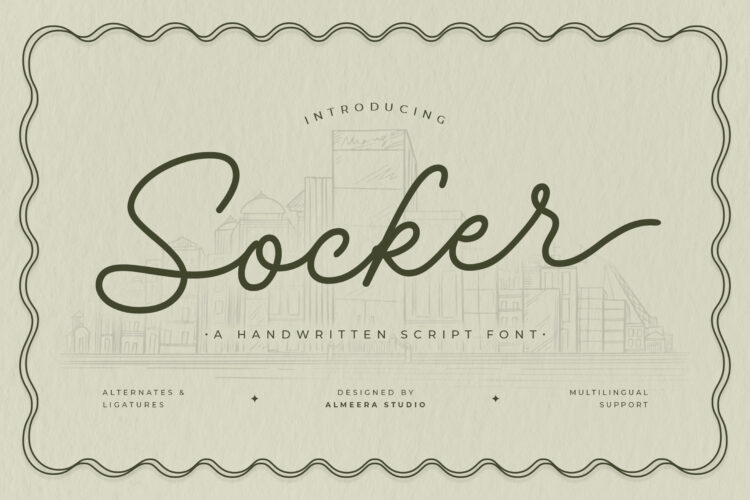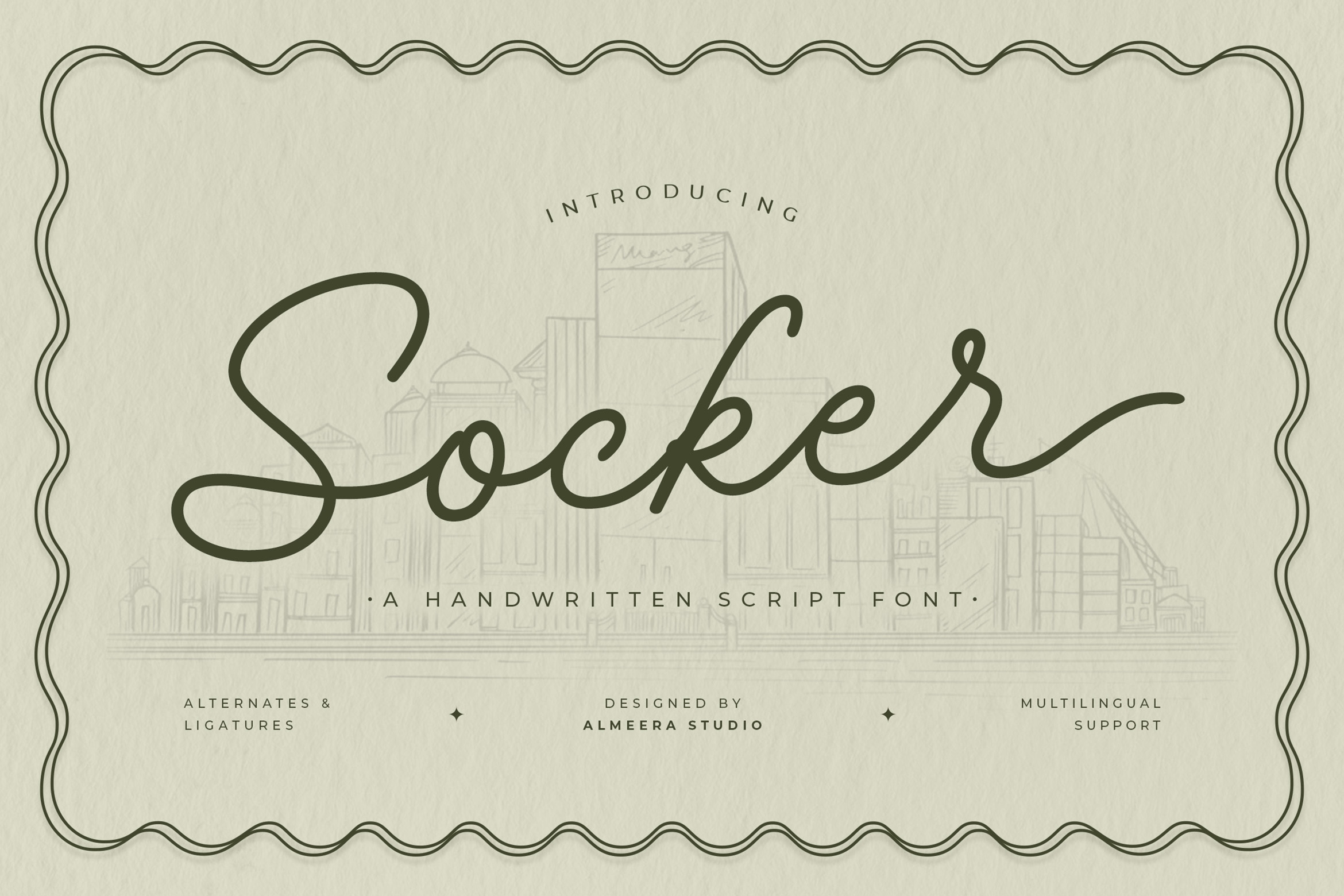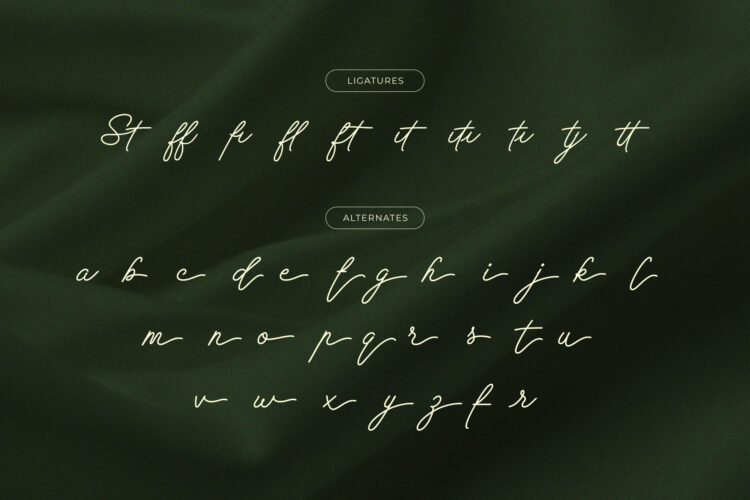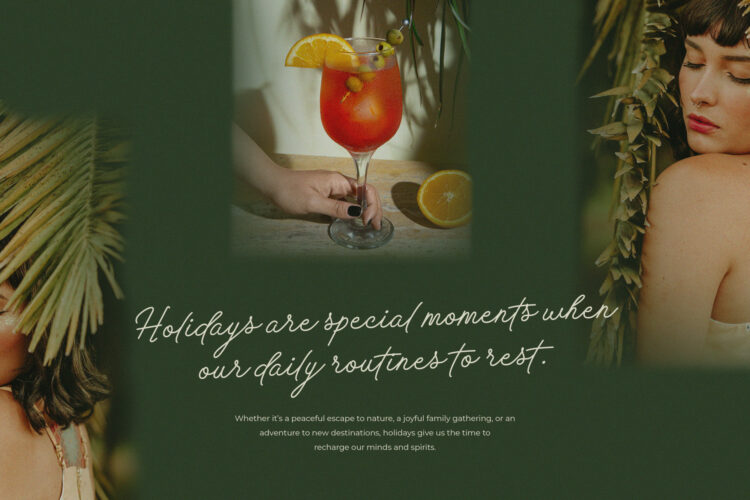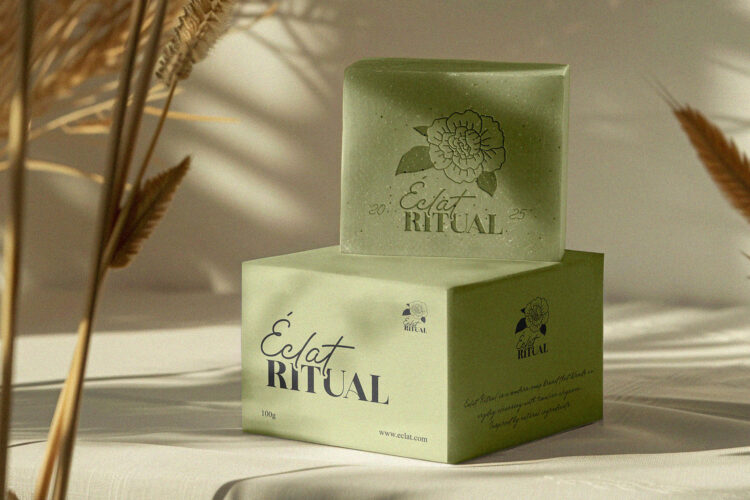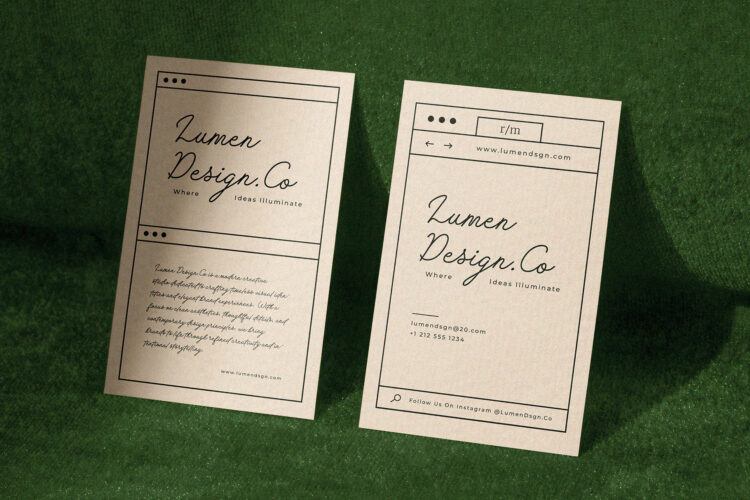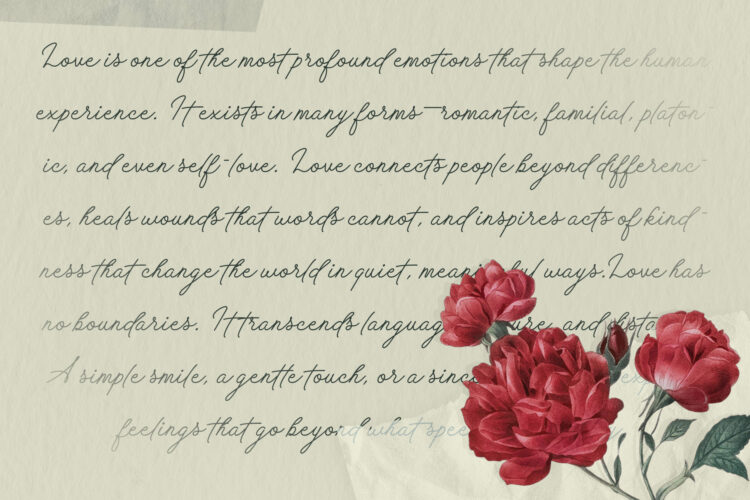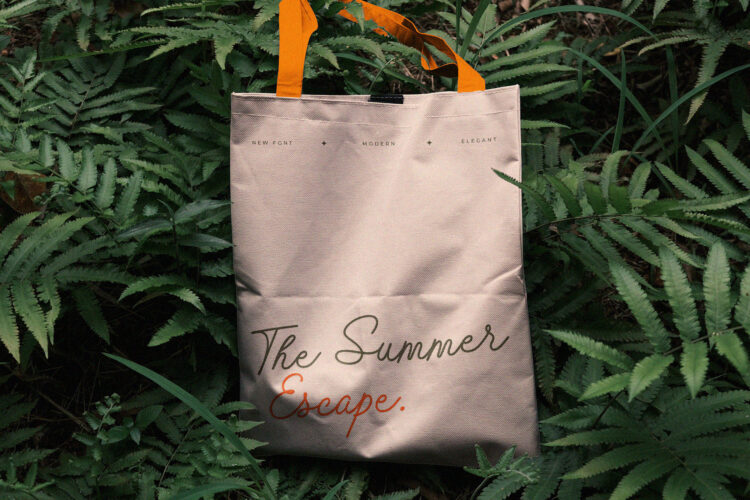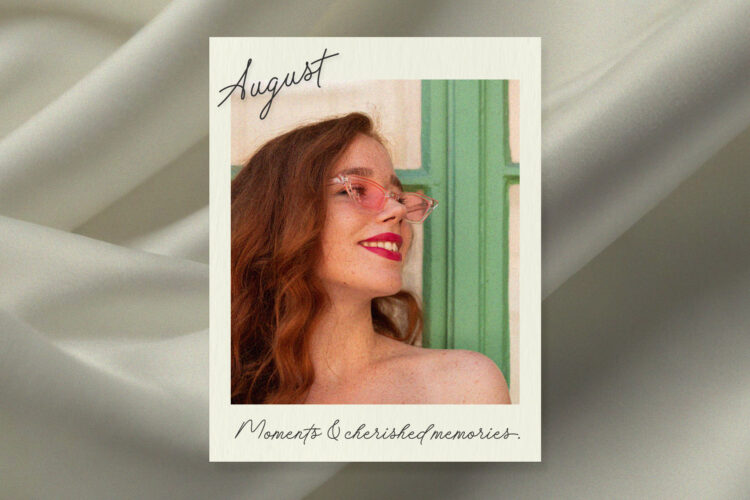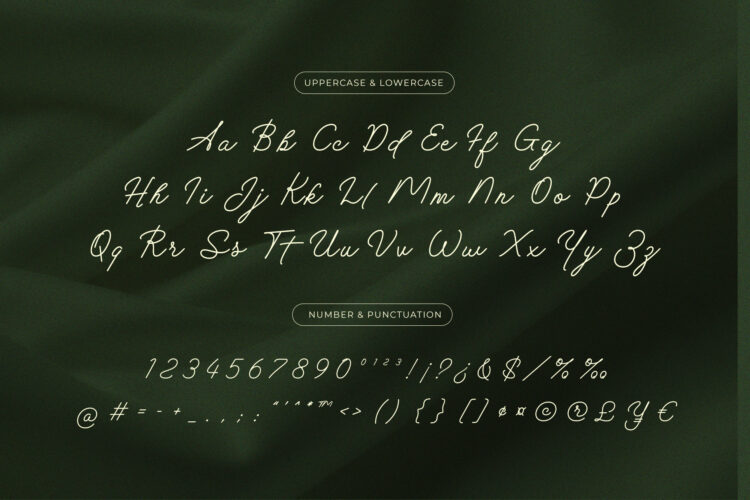
Socker is a handwritten script font that combines casual modern handwriting with a confident flow. Its rounded curves and balanced proportions give a friendly yet professional appearance, making it ideal for branding, packaging, invitations, and editorial projects.
This font includes alternates & ligatures to create natural letter connections, along with multilingual support for global usability. Socker’s approachable and versatile design makes it a perfect choice for creatives who value simplicity and authenticity.
– Numbers, fractions
– Punctuation and symbols
– Alternates
– Ligatures
– Multilingual support
Socker — A Handwritten Script Font